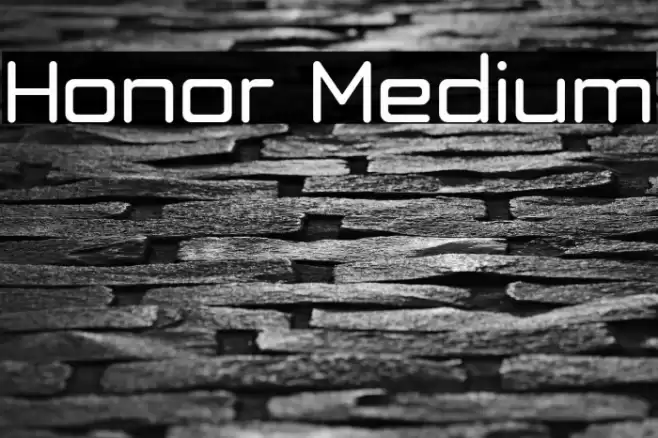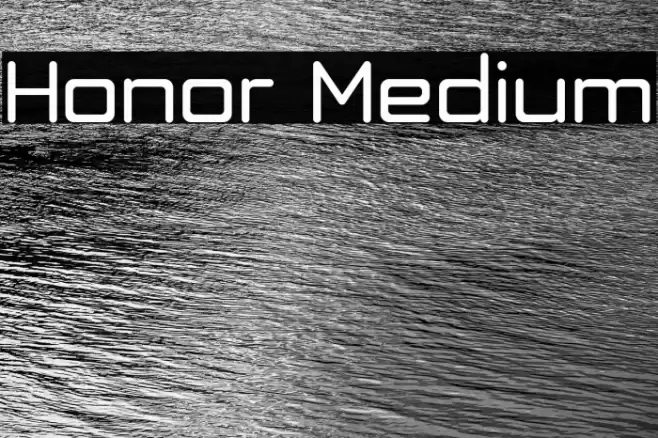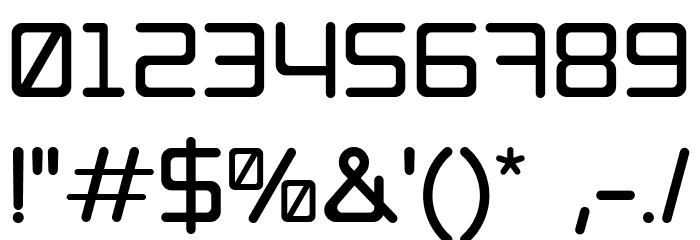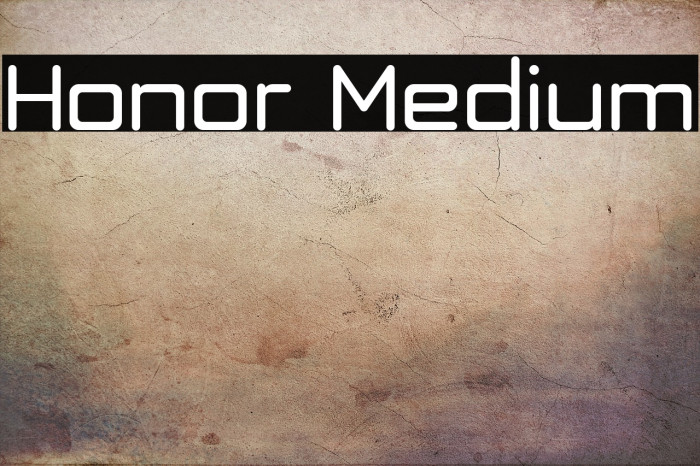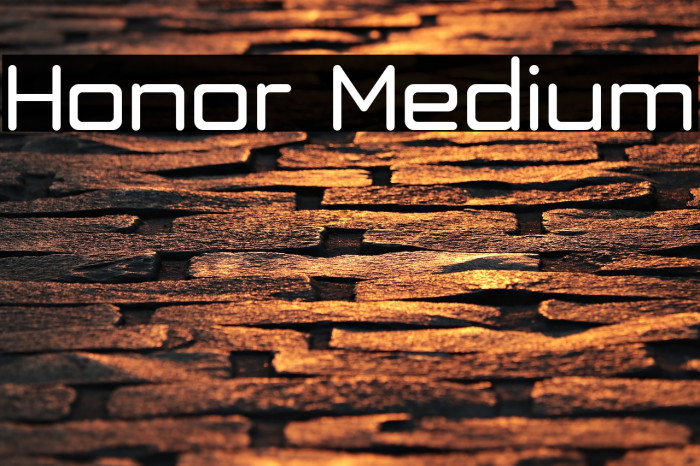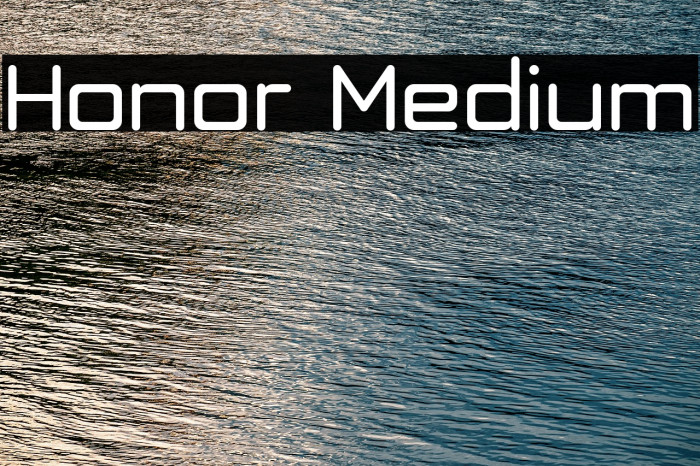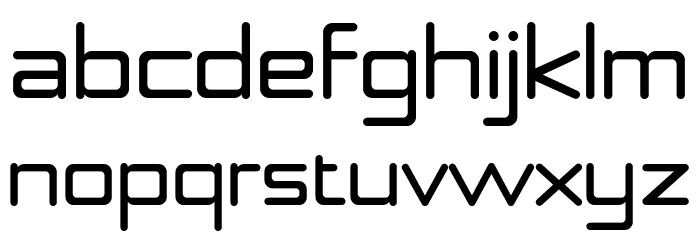
Honor Medium Font
Honor Medium Description
This font features a clean, geometric design with rounded edges, giving it a modern and approachable look. The characters are evenly spaced, with a consistent stroke width that maintains readability across different sizes. Uppercase and lowercase letters are distinct yet harmonious, while numerals and special characters are crafted with precision. The overall style is sleek and contemporary, making it suitable for a variety of digital and print applications. Its simplicity and clarity make it an excellent choice for projects that require a modern aesthetic.
A modern, geometric font with rounded edges and consistent stroke width from Uncategorized fonts.